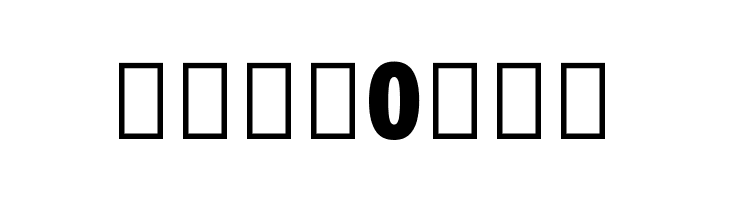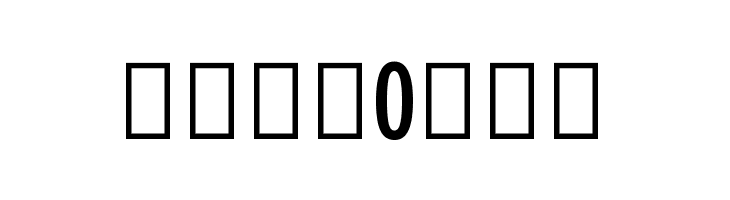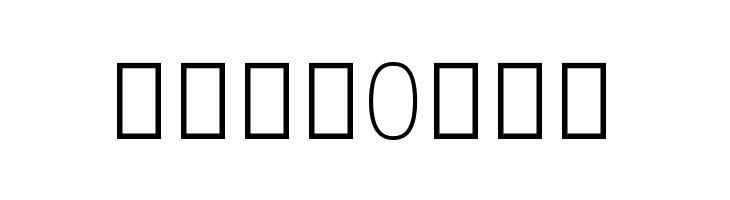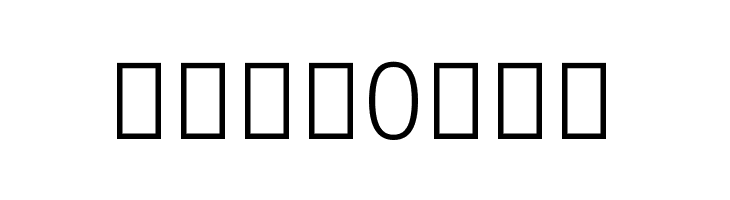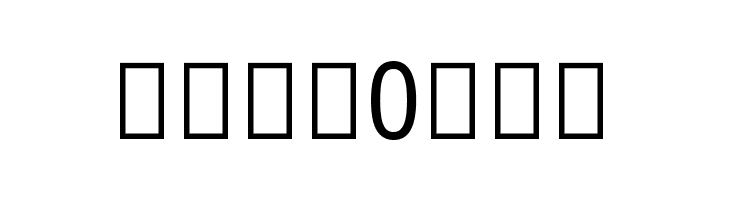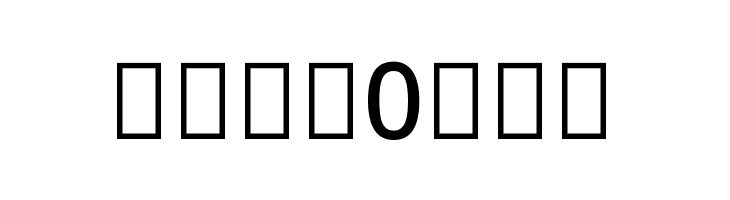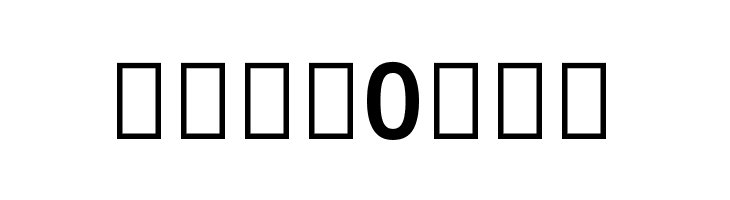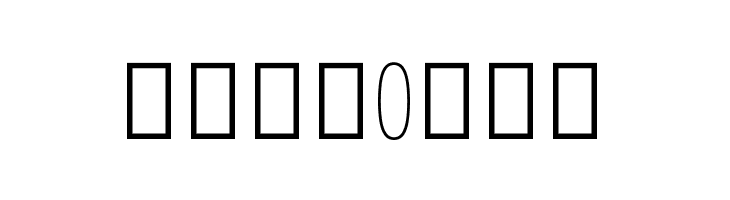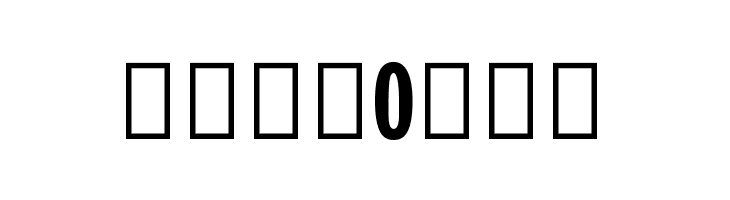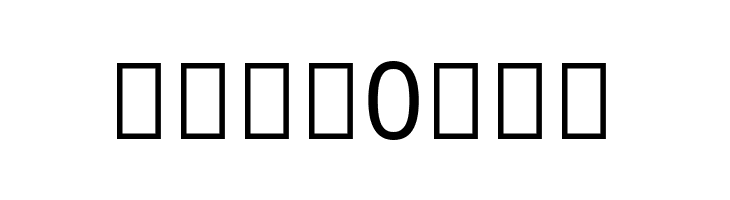
A modern, extra condensed sans-serif font with medium weight.
A clean, modern sans-serif font with extra condensed, semi-bold letterforms.
A modern, extra-condensed, thin sans-serif font with a clean and minimalistic design.
A clean, minimalistic sans-serif font with uniform stroke widths.
A clean, modern sans-serif font with a light weight and high legibility.
A modern, clean sans-serif typeface with excellent readability.
A modern, clean sans-serif typeface designed for clarity and readability.
A clean, modern sans-serif typeface with semi-bold weight and uniform stroke width.
A modern, semi-condensed sans-serif font with excellent readability.
A bold, modern font with a strong, assertive presence.